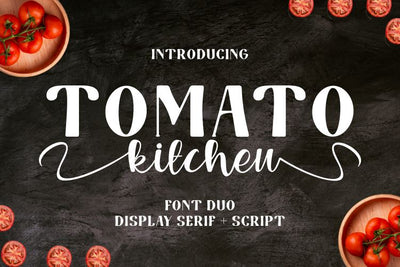
Tomato Kitchen - Font Duo
Tomato Kitchen is Duo font. It has a elegant, and modern look which can be used for logos, branding, invitations, stationary, wedding designs, social media posts, and every other design.